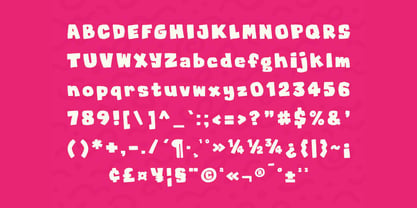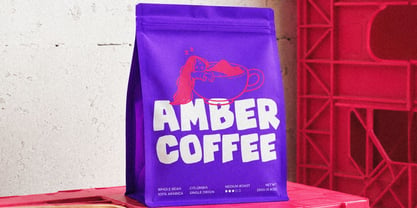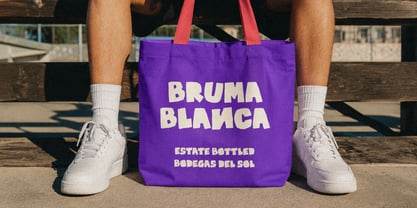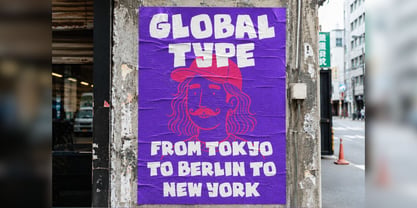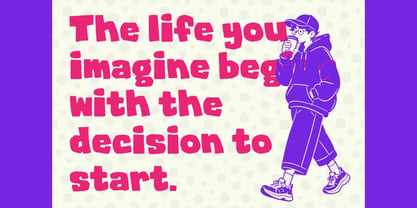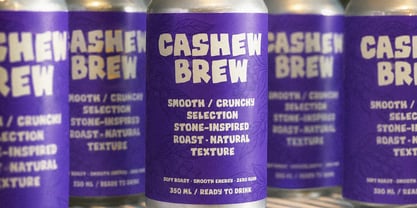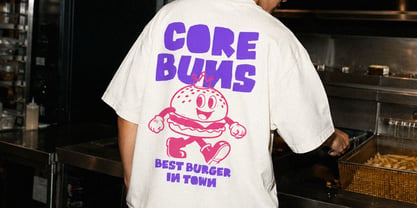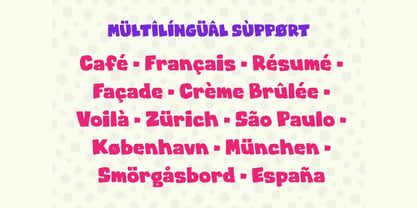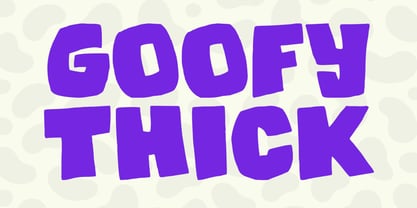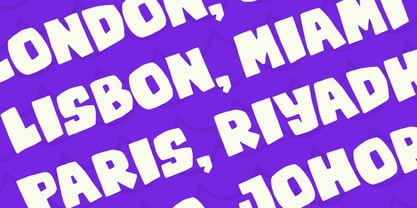
Goofy Thick
by Sronstudio
The Goofy Thick Font Family was designed by Muhamad Yusron Billah and published by Sronstudio. Goofy Thick contains 1 styles. More about this family
Goofy Thick is a fun handmade chunky display font packed with bold shapes, quirky details, and playful personality. Its thick, slightly irregular letterforms create a friendly hand-drawn feel that instantly makes any design more lively and memorable. Perfect for kids’ projects, posters, stickers, packaging, apparel, cartoons, social media graphics, and playful branding, Goofy Thick is made for designs that deserve to stand out.
- Numerals & punctuation
- Multilingual support
Designers: Muhamad Yusron Billah
Foundry: Sronstudio